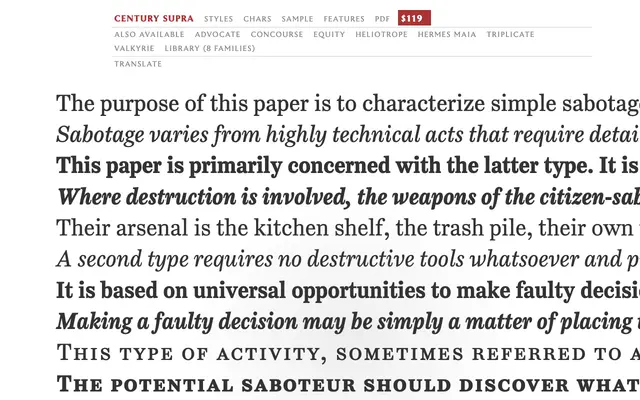
Century Supra
A revival of the Century typeface family by Matthew Butterick, refined for modern text setting and document use.
Century Supra draws on the Century tradition of sturdy, readable transitional serifs, reworked for contemporary document and editorial contexts. It carries the bracketed serifs, moderate stroke contrast and generous proportions that made the Century lineage a staple of book and legal typography. Sold as part of the MB Type library alongside other text-focused families such as Equity and Valkyrie.
Century Supra draws from the Century lineage of transitional serifs, combining sturdy bracketed serifs and moderate contrast with text-optimised proportions suited to long-form reading.